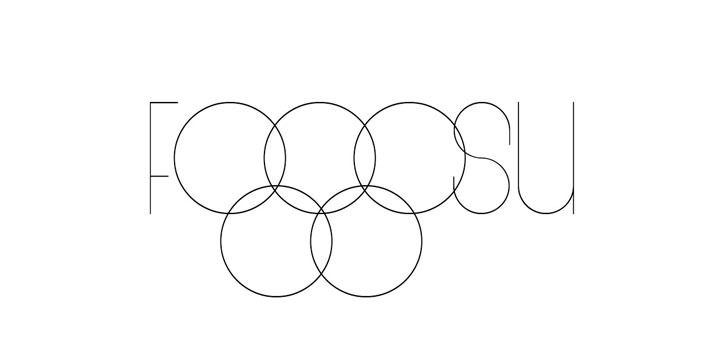
FOSU is a unique, geometric font that is entirely uppercase, extra thin, and very sleek. It is a legible font with some abstract characteristics. The uppercase letters are kerned tighter than the lowercase ones. It supports most international characters as well as numbers and symbols.
Fosu